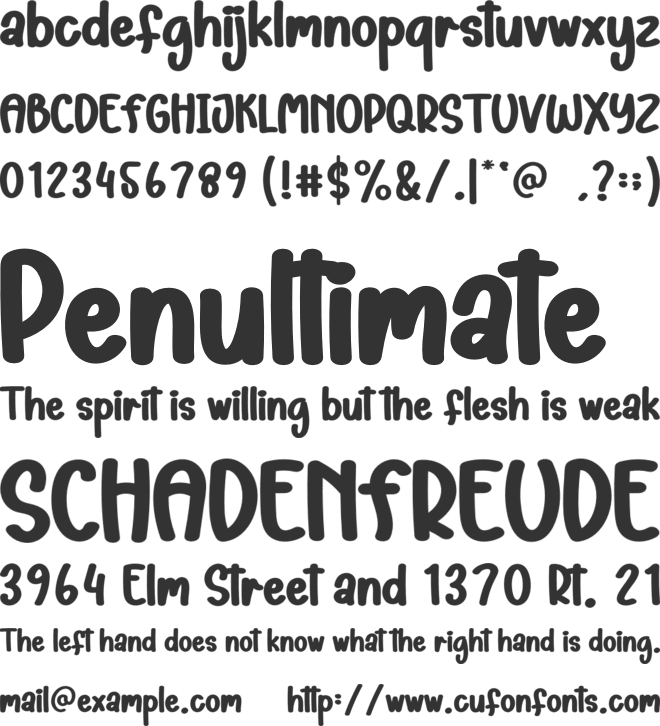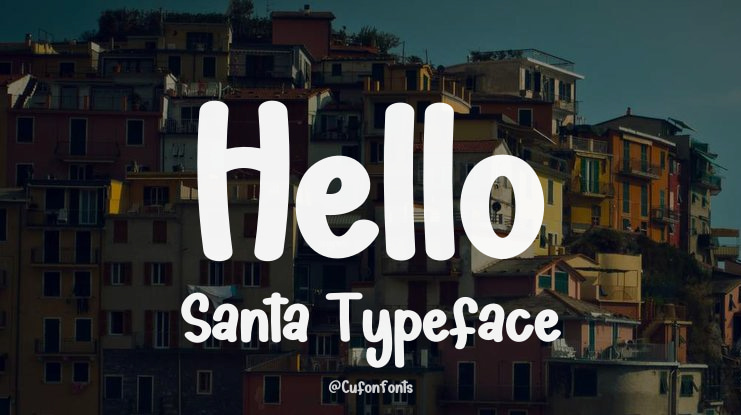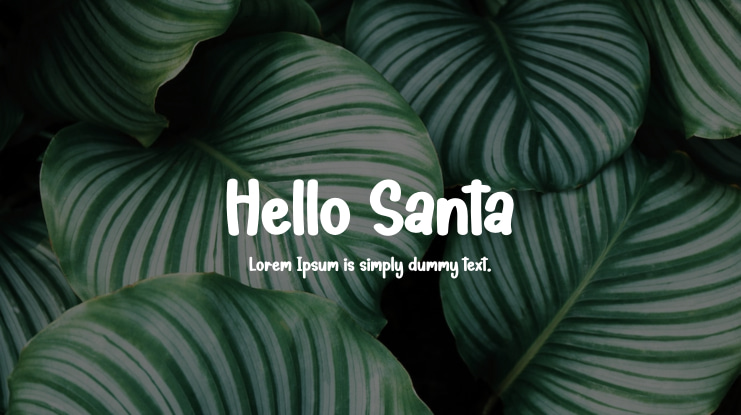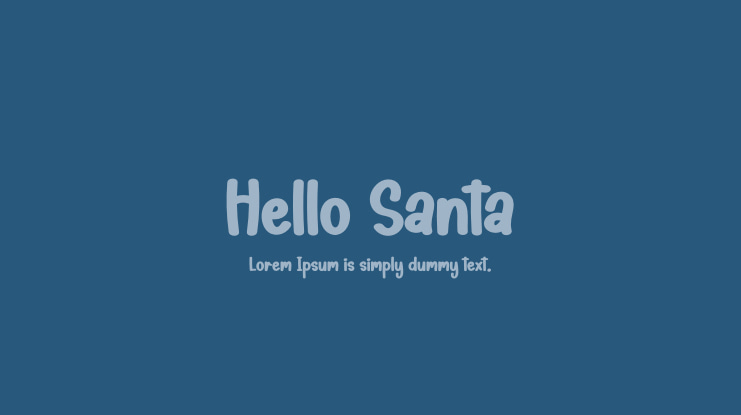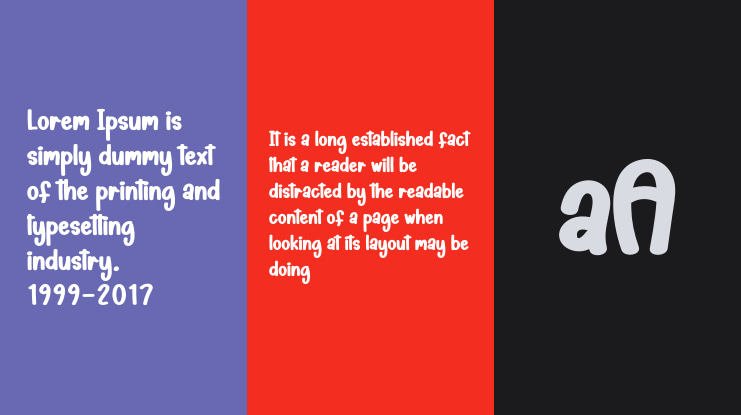
Hello Santa Font
Our special creative products are designed to provide you with an extraordinary experience. The latest style letters are perfect for enhancing wall displays, wedding invitations, social media post logos, advertisements, product packaging, product designs, labels, photography watermarks, invitations, stationery, and any project requiring tasteful handwriting.